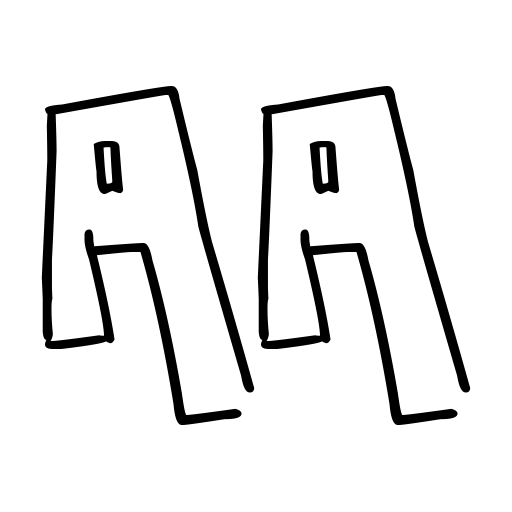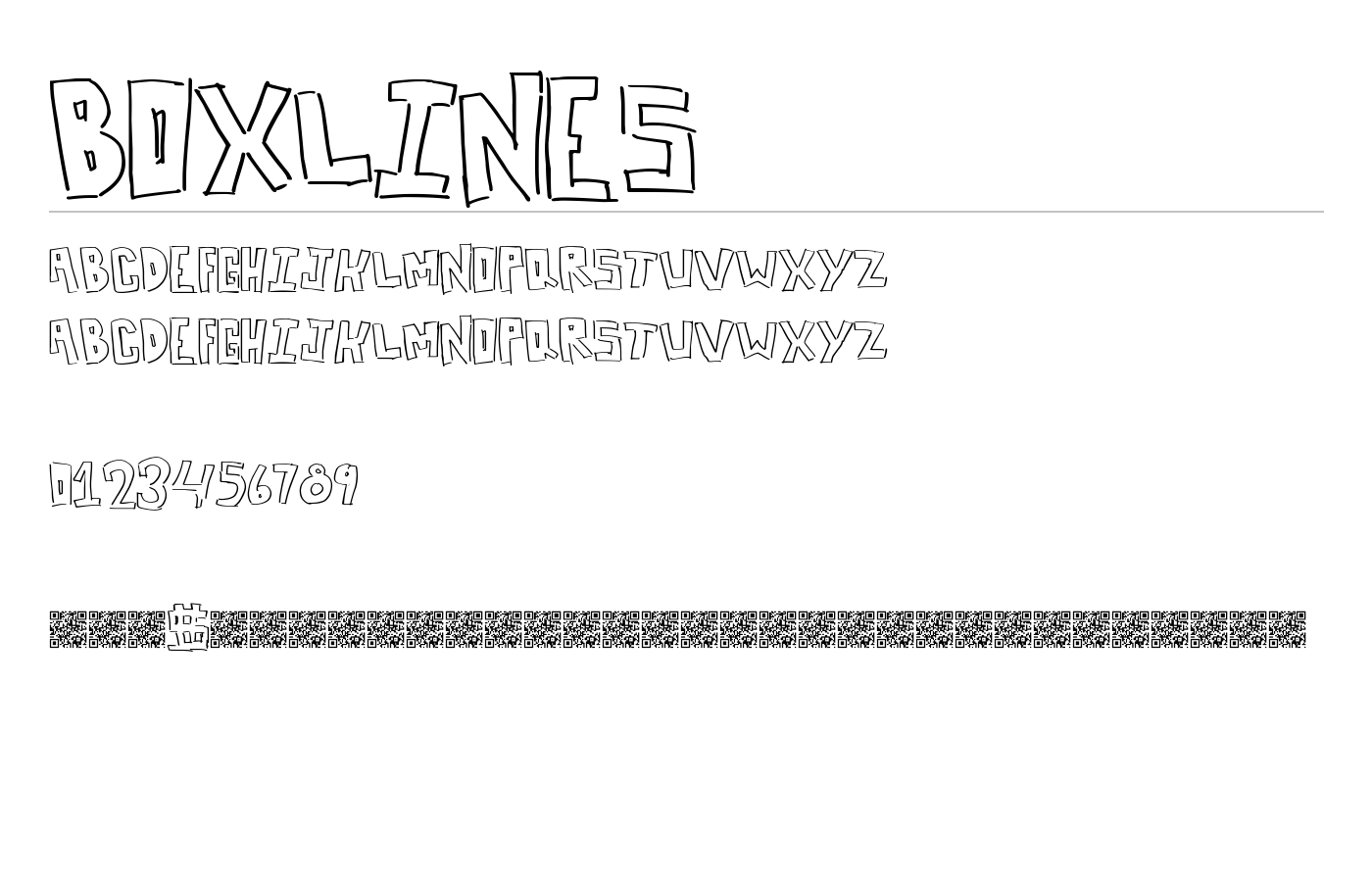
BoxLines is a playful and quirky hand-drawn sans serif font with a light weight and an irregular, boxy stroke style that feels casual and fun. Its tall, narrow letterforms feature a unique, sketch-like outline with slightly uneven lines, giving it a creative, informal personality perfect for eye-catching titles, posters, and designs that want to convey a handmade or youthful vibe. Ideal for projects seeking a distinctive, artistic touch, BoxLines adds charm and a friendly, approachable energy to any creative work.
BoxLines Font
About BoxLines Font